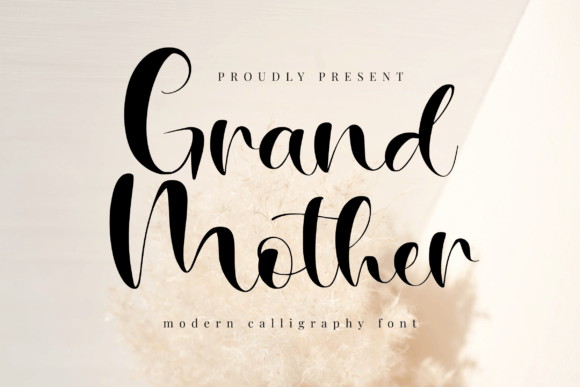
The Art of Elegant Typography: Unveiling the Grand Mother Font
There’s something magical about the moment when a couple decides to share their special day with the world. The excitement, the joy, and the romance all come together in the perfect blend of love and celebration. And what better way to express that than with beautiful typography?
Enter the Grand Mother Font, a stunning wedding script calligraphy font that’s inspired by the classic typography on a wedding invitation. This elegant font is not just perfect for wedding designs, but also for a wide range of creative projects, from crafts and DIY ideas to branding needs. With its timeless charm and versatility, the Grand Mother Font is a valuable addition to any designer’s toolkit.
- Unique Characteristics: The font features a unique, hand-drawn design with intricate details and subtle textures, giving it a distinctive and eye-catching appearance.
Grand Mother Font Review
Overall, I found “Grand Mother Font” to be a unique and interesting addition to any design project. ✨ Its bold, playful style makes it perfect for creating attention-grabbing headings or adding a touch of whimsy to your content. ✨ I particularly enjoyed using it for titles and introductory sections, as it immediately conveys a sense of warmth and approachability.
One of the standout features of this font is its versatility. It works well in both digital and print applications, making it a great choice for designers who need to create content for multiple channels. ✨ Additionally, its high legibility ensures that it’s easy to read, even at smaller font sizes.
- ⚠️ While “Grand Mother Font” is generally easy to read, it can be a bit challenging for users with vision impairments, particularly in low-light environments.
- ⚠️ The font’s bold style can sometimes feel overwhelming, especially when used extensively throughout a design. It’s essential to balance its use with more subtle fonts to avoid visual fatigue.
Overall, I’d recommend “Grand Mother Font” to designers who want to add a touch of personality to their projects. While it may not be suitable for every application, it’s a great choice for creating eye-catching headings, titles, and introductory sections.
Grand Mother Font is perfect for:
- Creating vintage-inspired designs.
- Adding a touch of elegance to your branding.
- Designing invitations and wedding stationery.
For the most effective use of Grand Mother Font, experiment with different font sizes and colors to create visual interest.
Is the Grand Mother Font suitable for use in print media?
Yes, the Grand Mother Font is suitable for use in print media, including books, magazines, and newspapers. The font is designed to be highly legible and visually appealing in print, making it a great choice for body text and display headings. However, please note that the font may not be as optimized for print as it is for digital use, and you may need to adjust the font size and line spacing to achieve the best results.